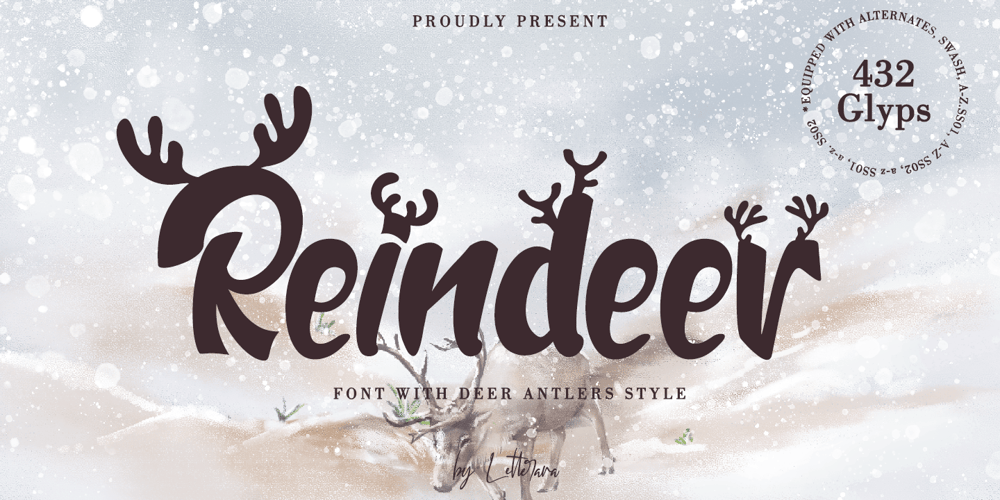
Reindeer Font Family was designed by Thomas Aradea and published by Letterara. Reindeer contains 1 styles and family package options. Reindeer is a bold script font with many features, make great your Christmas and winter designs. Get inspired by the deer antler style!